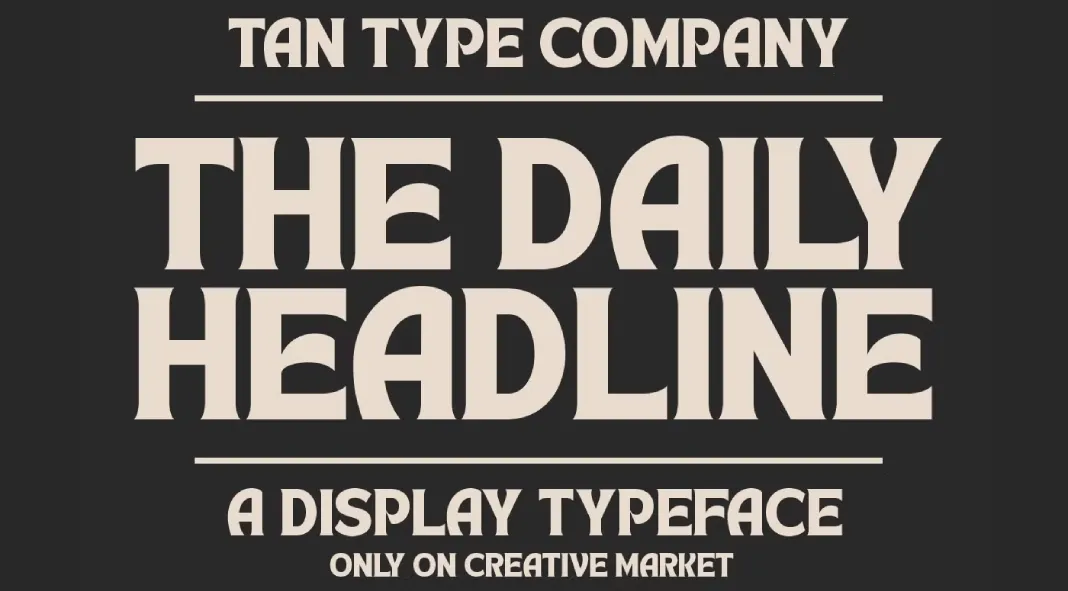
Discover the Charm of TAN Headline Font by TanType: A Retro-Inspired Display Serif with a Modern Twist
The TAN Headline font by TanType is a remarkable typeface that perfectly marries retro inspiration with contemporary design elements. For designers seeking a typeface that commands attention and adds a touch of vintage elegance to their projects, the TAN Headline font offers an exceptional choice. This font celebrates style, versatility, and the rich heritage of serif fonts.
A Glimpse into TAN Headline Font
TanType’s Headline font is a display serif font that exudes a charming retro vibe. It takes inspiration from classic serif fonts, yet it incorporates subtle modern twists that make it stand out in the digital age. The font is characterized by its bold and striking letterforms, which are both eye-catching and easy to read. Its design is simple yet sophisticated, making it suitable for a wide range of design applications.
Retro Inspiration Meets Modern Design
The design of TAN Headline Font is deeply rooted in the aesthetics of the past. It draws from the timeless appeal of retro serif fonts, bringing back the elegance and charm that defined the typography of yesteryears. However, the designers at TanType have infused this classic style with contemporary elements to ensure it resonates with modern audiences. The result is a font that feels both nostalgic and fresh, bridging the gap between the old and the new.
Versatility in Design
One of the standout features of the typeface is its versatility. This typeface is perfect for a variety of design projects, ranging from editorial designs and advertising to branding and web design. Its bold and distinctive characters make it an excellent choice for headlines, titles, and any text that needs to grab attention. The font’s clear and legible design ensures that it works well in both print and digital formats, making it a valuable asset for designers working across different mediums.
Multilingual Support
In today’s globalized world, the ability to communicate across different languages is crucial. The font supports multiple languages, making it an ideal choice for international projects. This feature ensures that designers can maintain a consistent and cohesive look across various language editions, enhancing the overall impact of their work. Whether you are designing for an English-speaking audience or a multilingual market, the TAN Headline font has you covered.
Design Features and Characteristics
The TAN Headline font is meticulously crafted to offer a unique blend of style and functionality. Some of its key design features include:
- Bold and Striking Letterforms: The font’s bold characters make a strong visual impact, ensuring that your headlines and titles stand out.
- Elegant Serifs: The classic serif elements add a touch of sophistication and elegance to the font, making it suitable for high-end designs.
- Clean and Legible: Despite its retro-inspired design, the TAN Headline font maintains excellent legibility, ensuring that your text is easy to read.
- Versatile Usage: From print to digital, the font adapts seamlessly to different design contexts, providing versatility and consistency.
- Extensive Character Set: With support for multiple languages, this typeface offers an extensive character set that meets the needs of diverse design projects.
Applications in Design
The TAN Headline font is a powerful tool for designers looking to create impactful and memorable designs. Here are some of the applications where this font truly shines:
- Editorial Design: Perfect for magazine covers, article headlines, and feature stories, the TAN Headline font adds a touch of elegance and sophistication to editorial layouts.
- Branding: For brands looking to convey a sense of heritage and timeless style, this font is an excellent choice for logos, taglines, and brand identity materials.
- Advertising: The bold and attention-grabbing nature of the typeface makes it ideal for advertising campaigns, posters, and promotional materials.
- Web Design: Enhance the visual appeal of websites with this font’s striking headlines and titles, creating a cohesive and stylish online presence.
TanType’s Headline font is a great choice for designers seeking a blend of retro charm and modern sophistication. Its bold and striking design, coupled with its versatility and multilingual support, make it an invaluable addition to any designer’s toolkit. Whether you are working on editorial projects, branding, advertising, or web design, this retro font offers the perfect balance of style and functionality to elevate your work. Discover the full potential of the TAN Headline font and let it bring a touch of timeless elegance to your design projects.